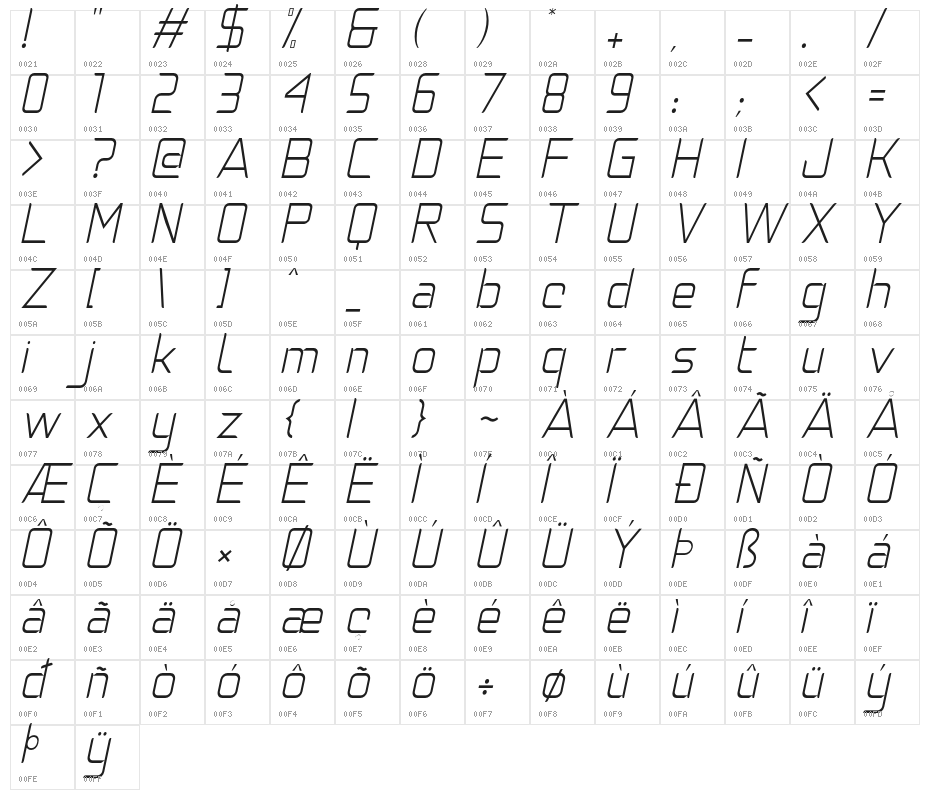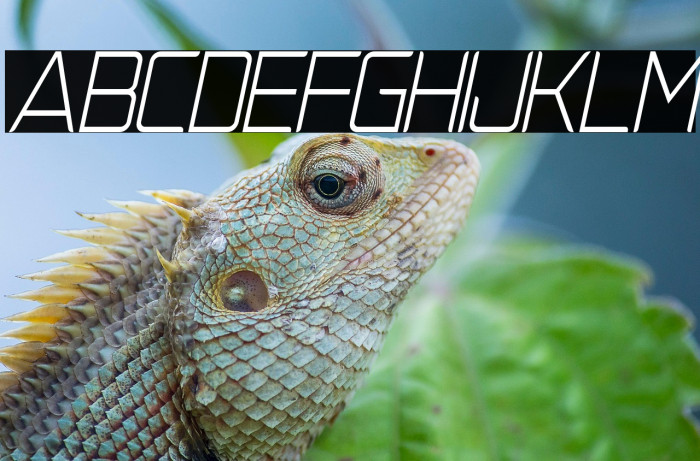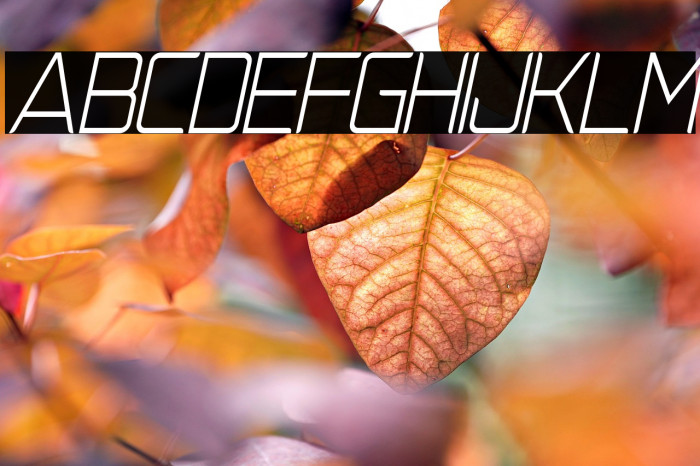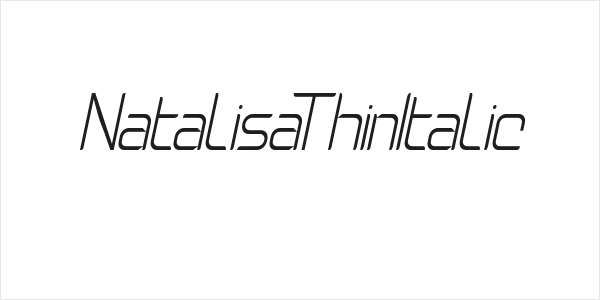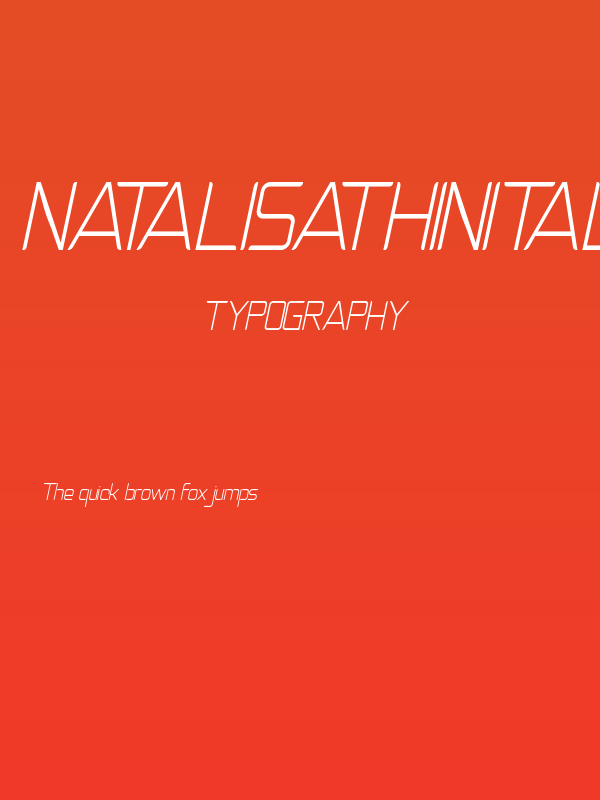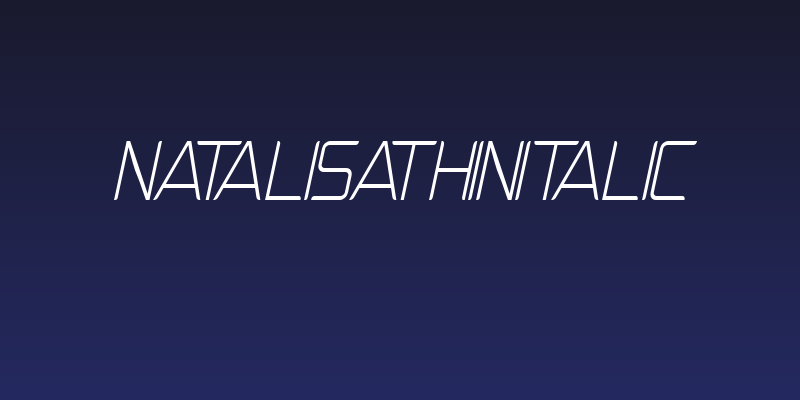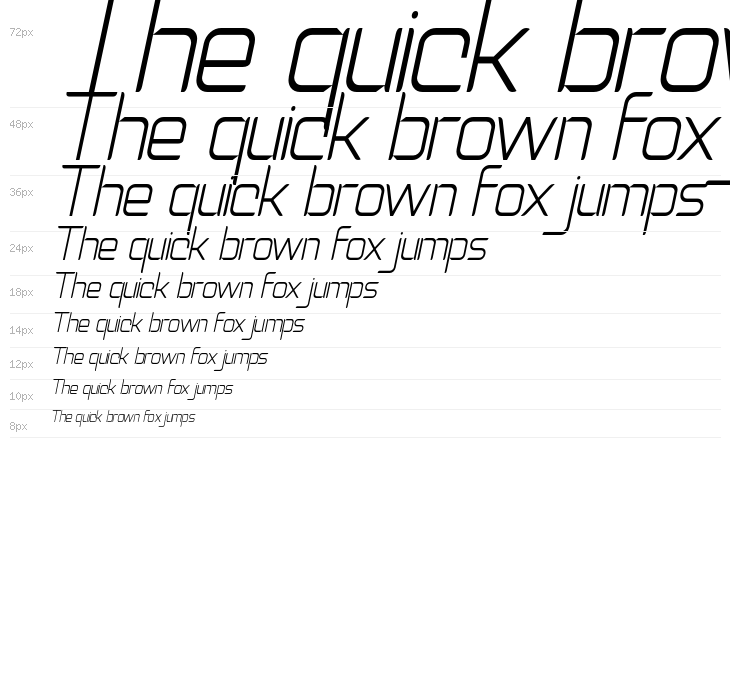
NatalisaThinItalic Font
NatalisaThinItalic Description
This font exhibits a sleek, modern aesthetic with a thin, italicized style. The characters are elongated and slightly condensed, giving a streamlined and elegant appearance. The uppercase and lowercase letters maintain a consistent slant, enhancing the italic effect. The numerals and special characters follow the same design principles, ensuring uniformity across all glyphs. The thin strokes and minimalistic design make it suitable for contemporary projects that require a touch of sophistication.